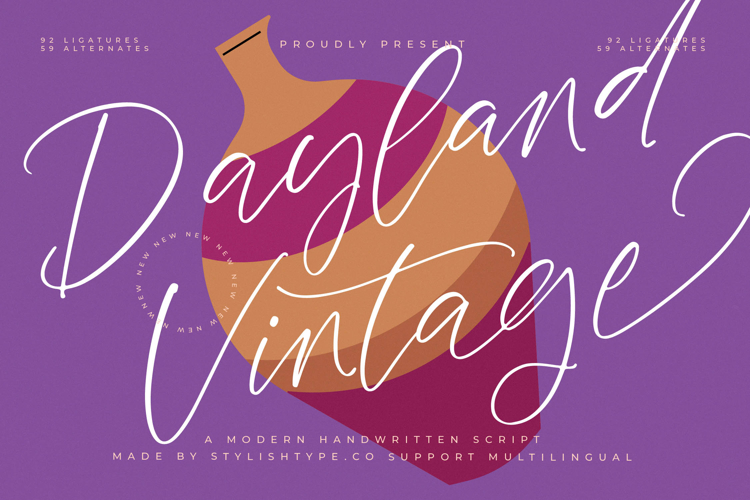
Dayland Vintage - Modern Handwritten Script
Dayland Vintage is a modern handwritten script that combines elegance with a natural handwritten charm. Its long strokes, fluid rhythm, and stylish alternates make it a versatile choice for both professional and creative projects. With 92 ligatures and 59 alternates, this typeface gives designers the freedom to build expressive and unique lettering compositions tailored to their vision.
This font excels in branding. Perfect for logos, boutique shops, artisan products, fashion brands, and lifestyle packaging, Dayland Vintage communicates authenticity and sophistication. Its handwritten feel ensures that branding projects look stylish, distinctive, and memorable, giving businesses a strong identity.
In editorial and publishing, Dayland Vintage brings refinement and artistry. Magazines, book covers, creative zines, and event flyers benefit from its graceful structure and smooth flow. It creates editorial layouts that combine with readability, making every design stand out.
For web typography, this handwritten script adapts beautifully across blogs, websites, online portfolios, and social media platforms. Its natural handwritten look ensures that digital media projects feel authentic, modern, and stylish, helping brands build deeper connections with their audiences.